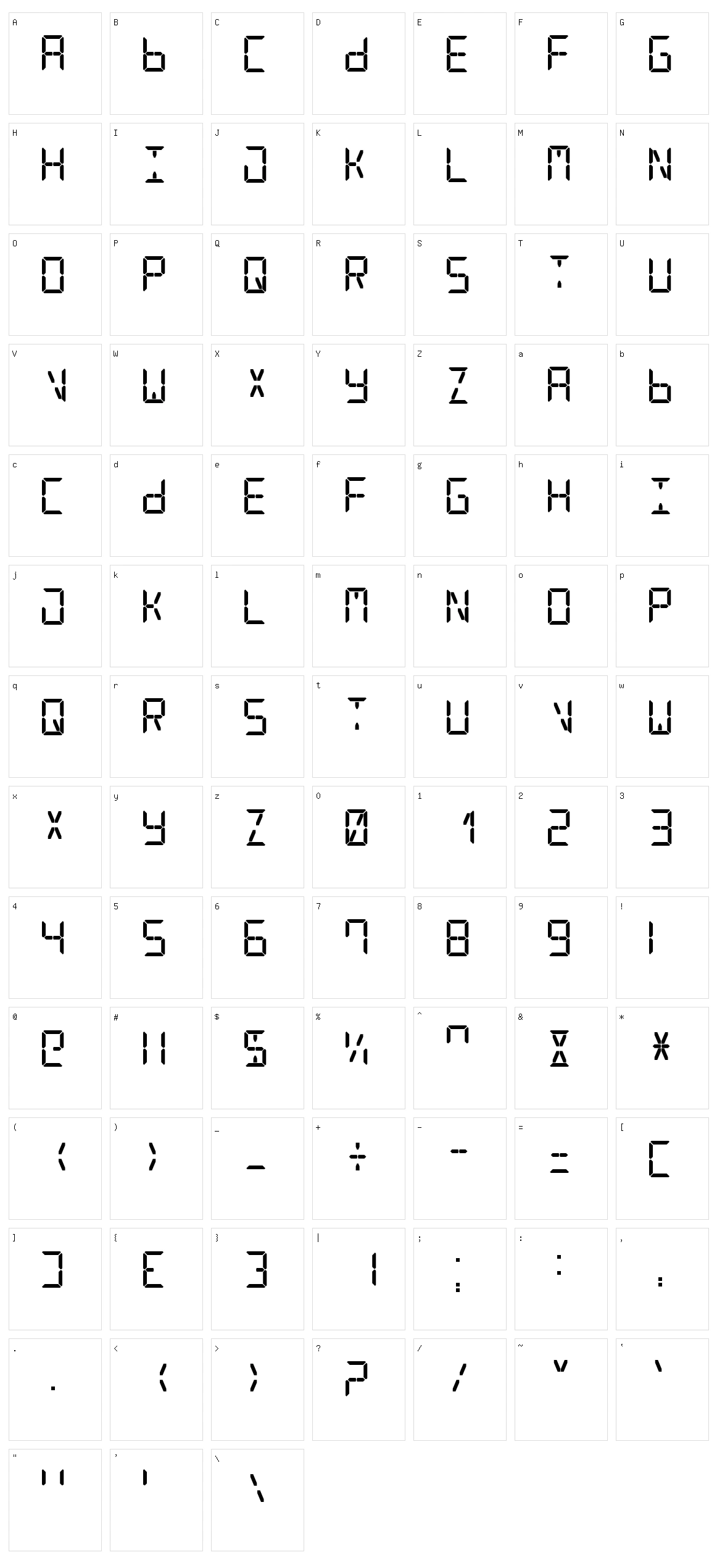
Digital Counter 7
Designed by: Style-7
Category: LCD & Futuristic
Original seven segments digital font but with additional internal segments to show letters and specific symbols. The font has "Italic" style. Cyrillic symbols are supported.